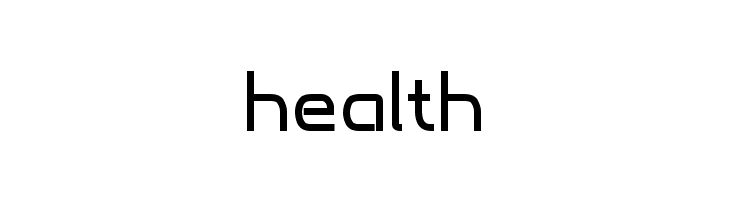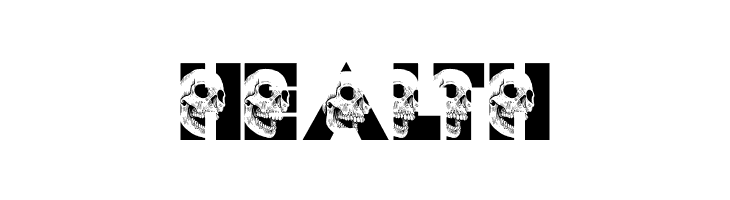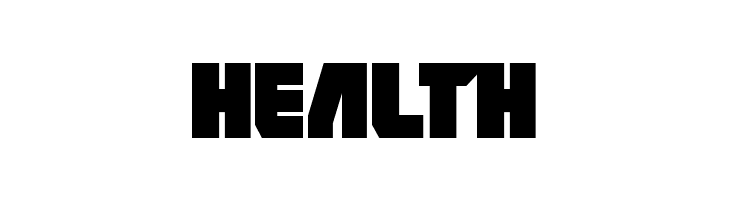
A bold, outlined font with a three-dimensional shadow effect.
A bold, jagged font with a fierce, edgy style.
A modern, geometric font with clean lines and uniform stroke width.
A bold, skull-themed font with geometric uppercase letters.
A bold, geometric font with a futuristic, industrial style.
A bold, gothic-inspired font with sharp, angular edges and a tribal aesthetic.
A bold, gothic font with skull-themed letters and dramatic flair.